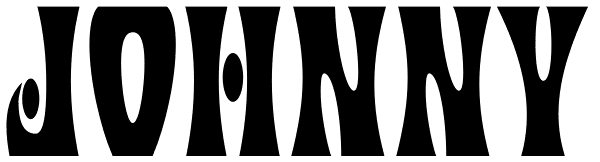
Johnny
Johnny is the latest addition to the long line of popular psychedelic/hippy/funky art nouveau fonts representing the retro side of the Canada Type library. It is the digitization of a popular 1969 Phil Martin typeface that was known by two different...